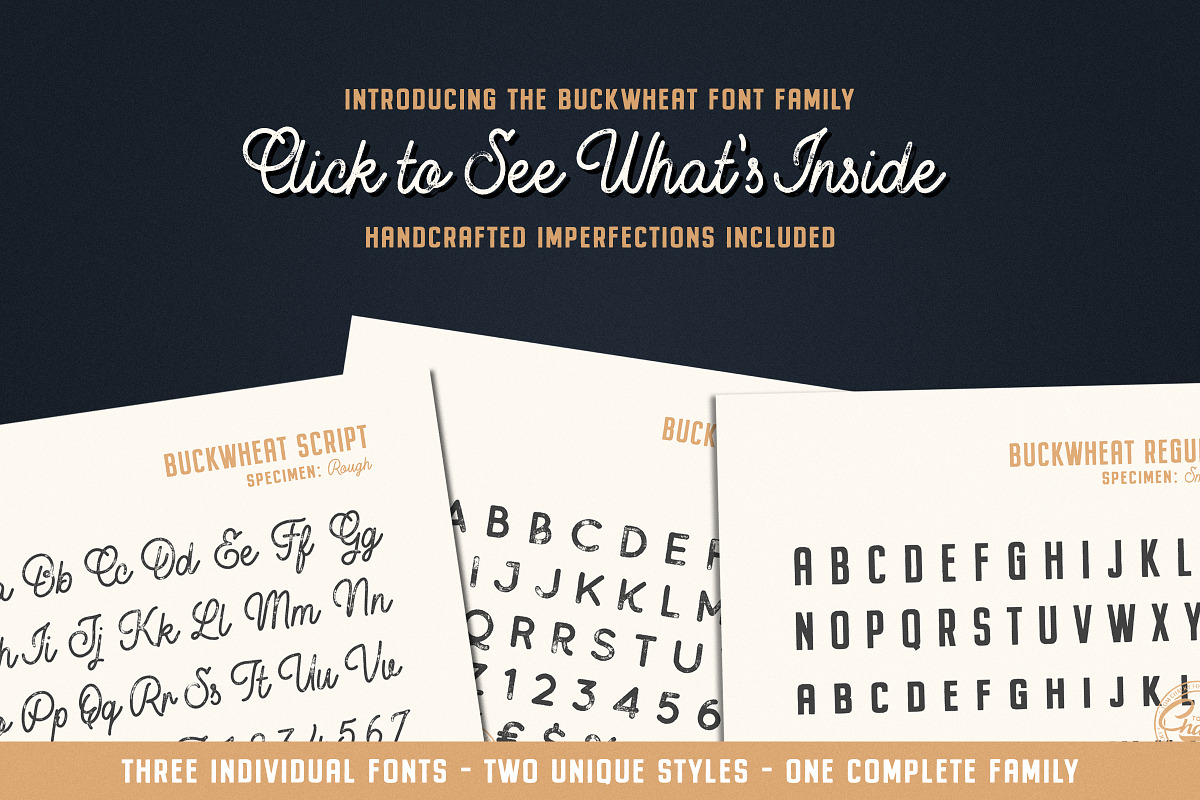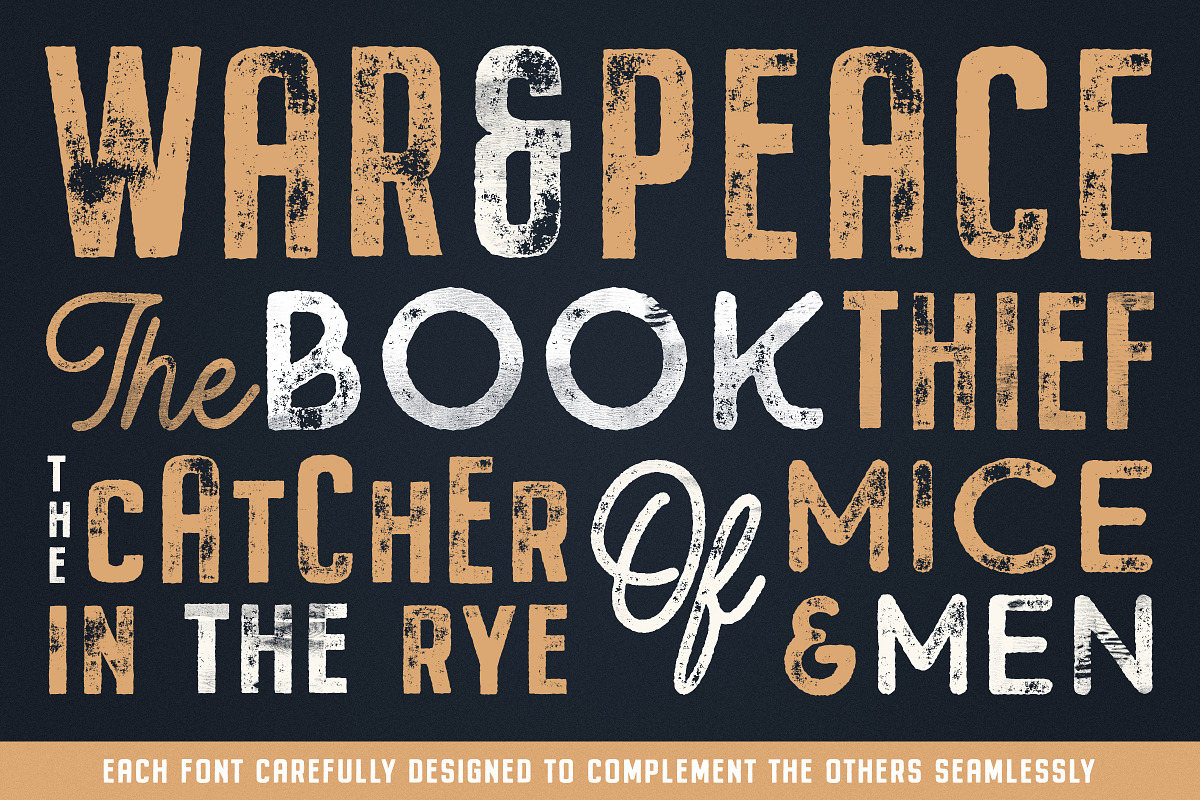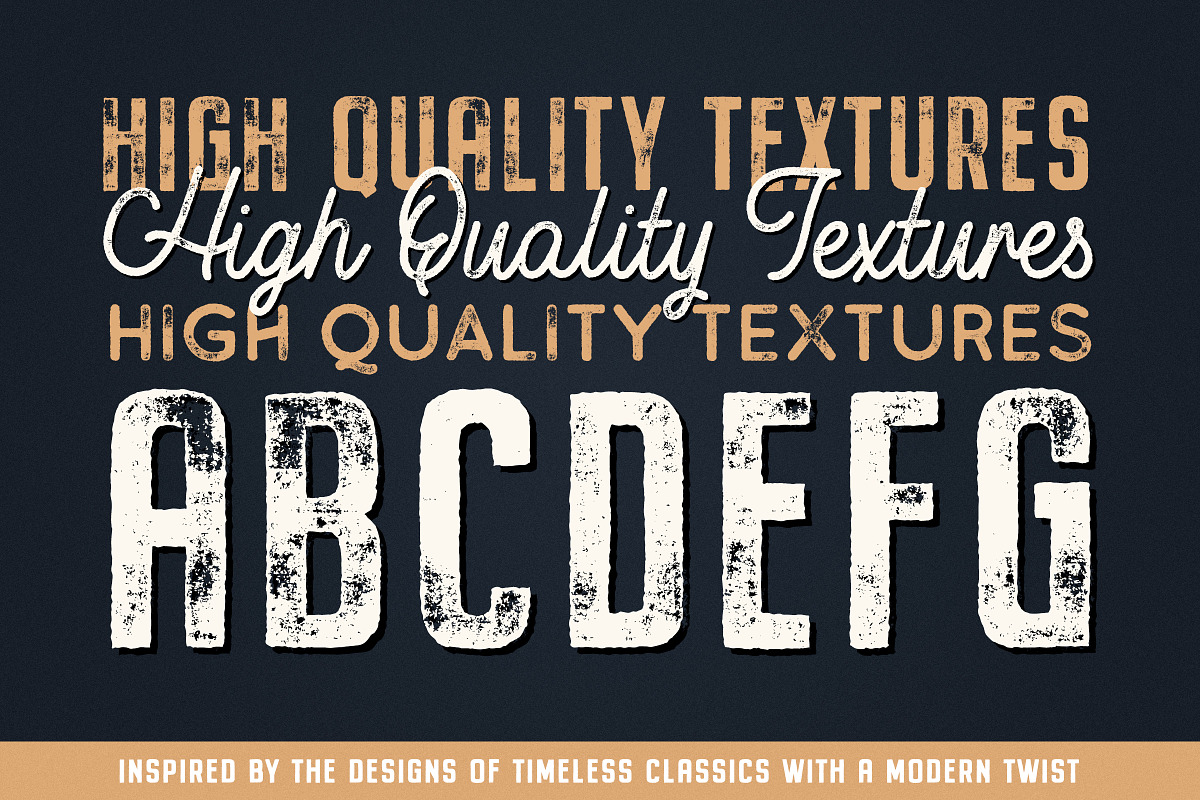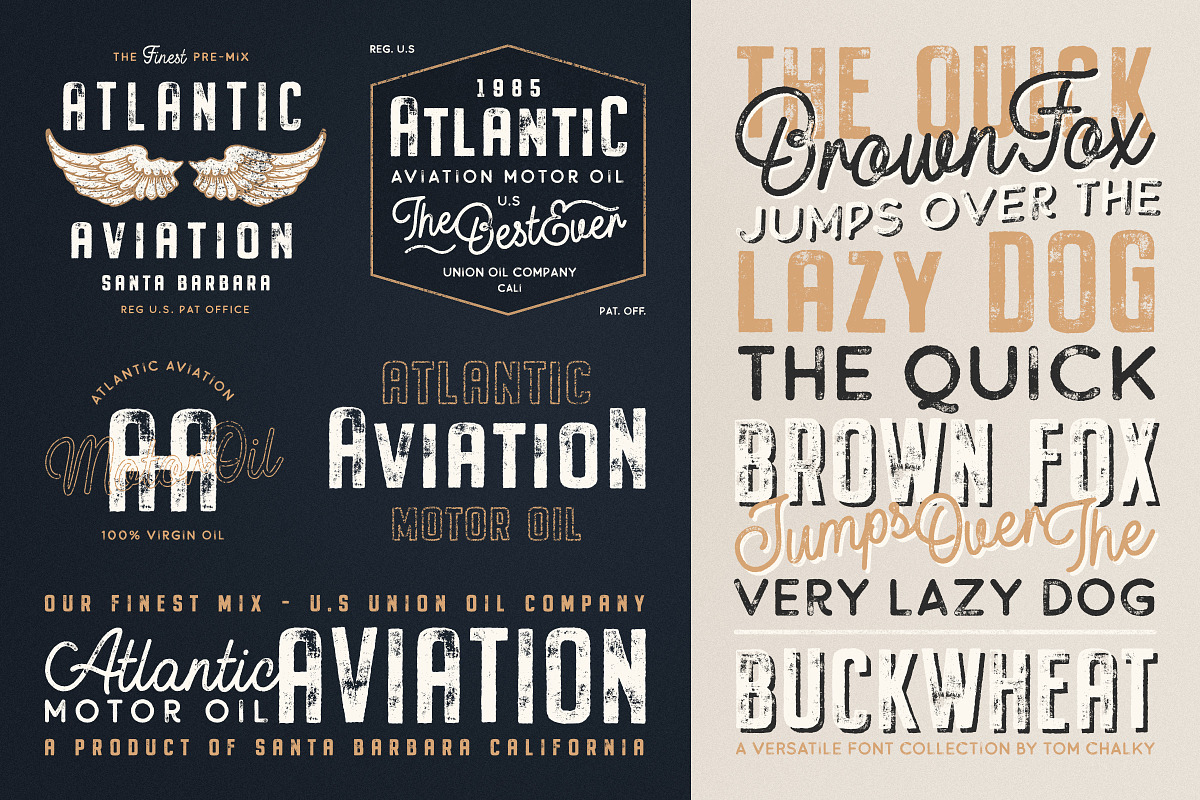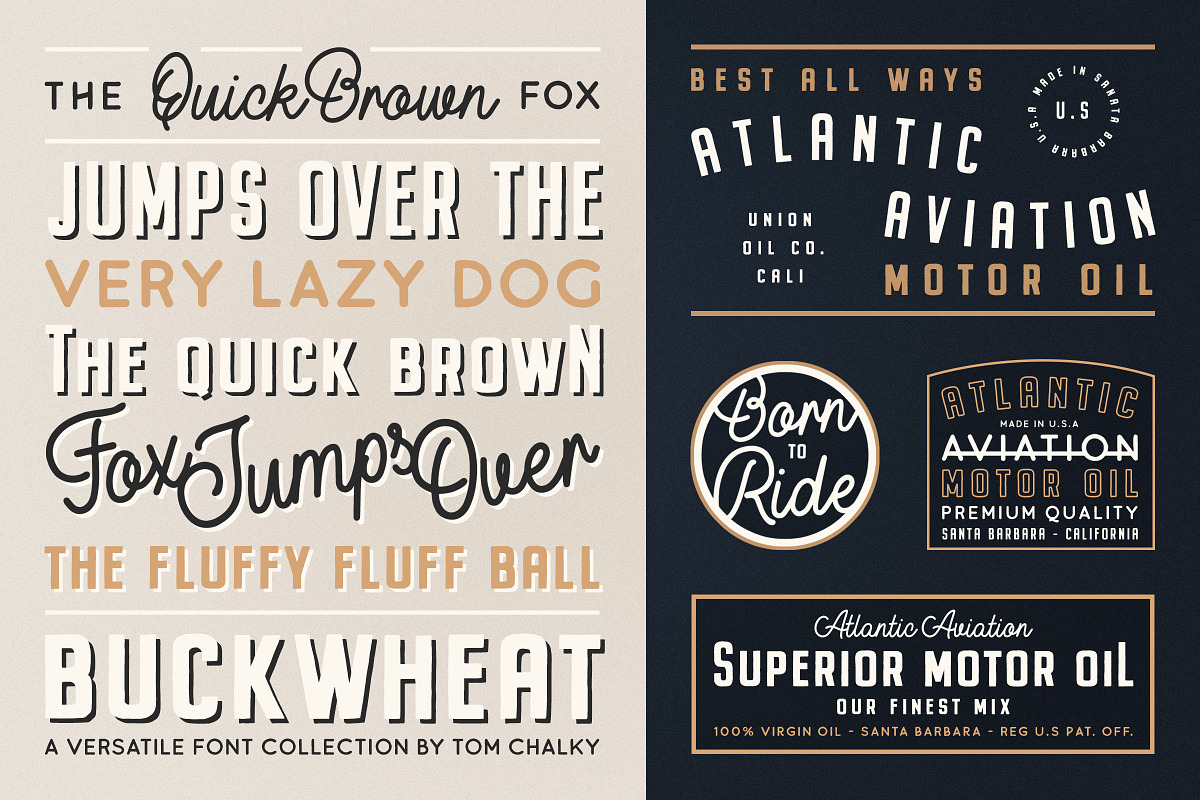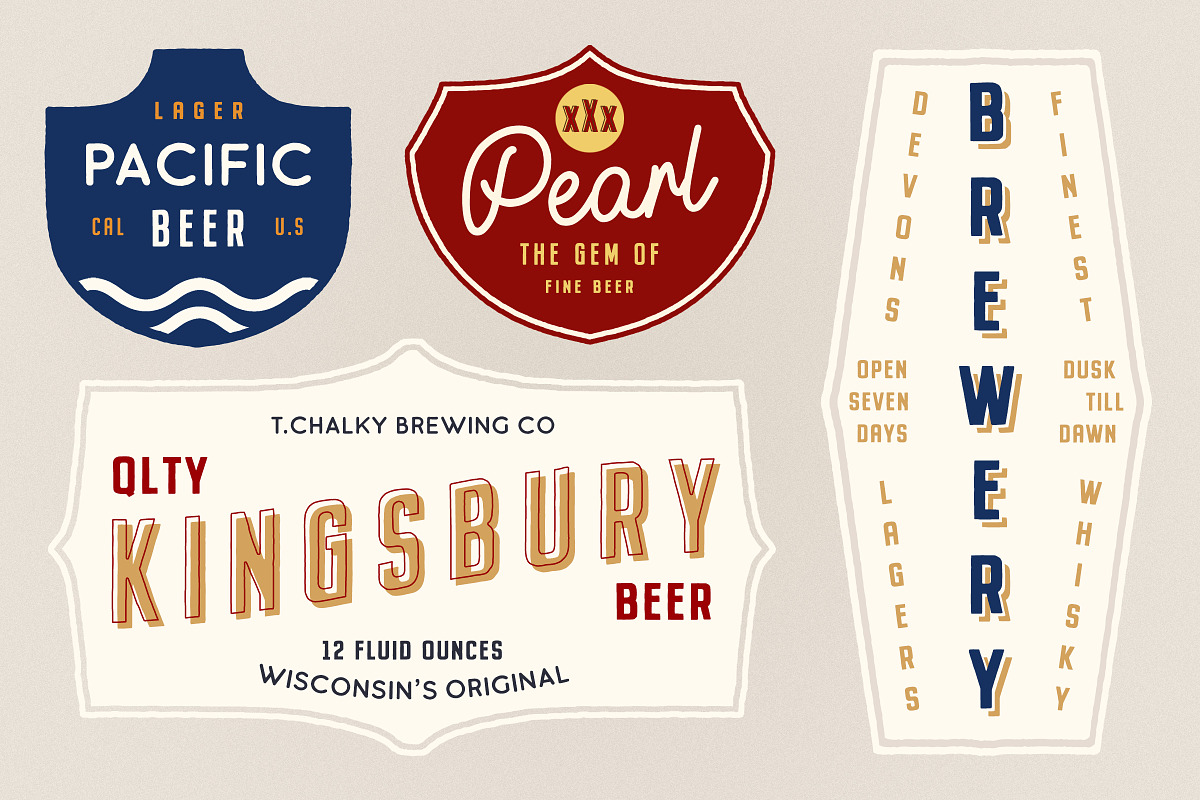
Buckwheat Font Collection
Introducing the Buckwheat Font Collection
Each and every font within the brand new Buckwheat Collection was carefully created to be timeless, super versatile, and effortlessly cohesive. An essential kit to come back to time and time again for any number of design projects; from clean and modern, to rough and organic.
Buckwheat TC Regular: A condensed heading/titling font boasting real small caps (along with numerals, currency glyphs and more to match the small caps).
Buckwheat TC Sans: A rounded sans-serif font with several stylistic alternatives for various capitals (A, B, G, H, J, K, P, and R).
Buckwheat TC Script: Tying everything together, a simple yet effective monoline script font designed to look great big or small.
Rough and Smooth Styles: All of the aforementioned fonts are available in both smooth and textured styles. The textures are consistent throughout the collection, improving the cohesion of the fonts and eliminating the need to texture them yourself.
All of the typefaces within this collection include multilingual support and a full western character glyph range.